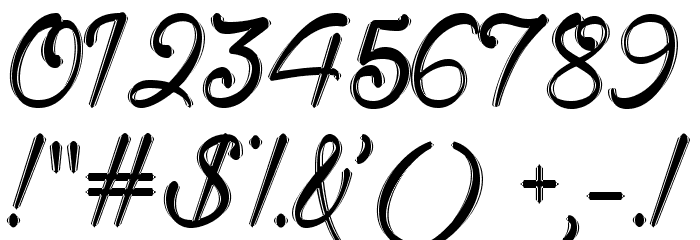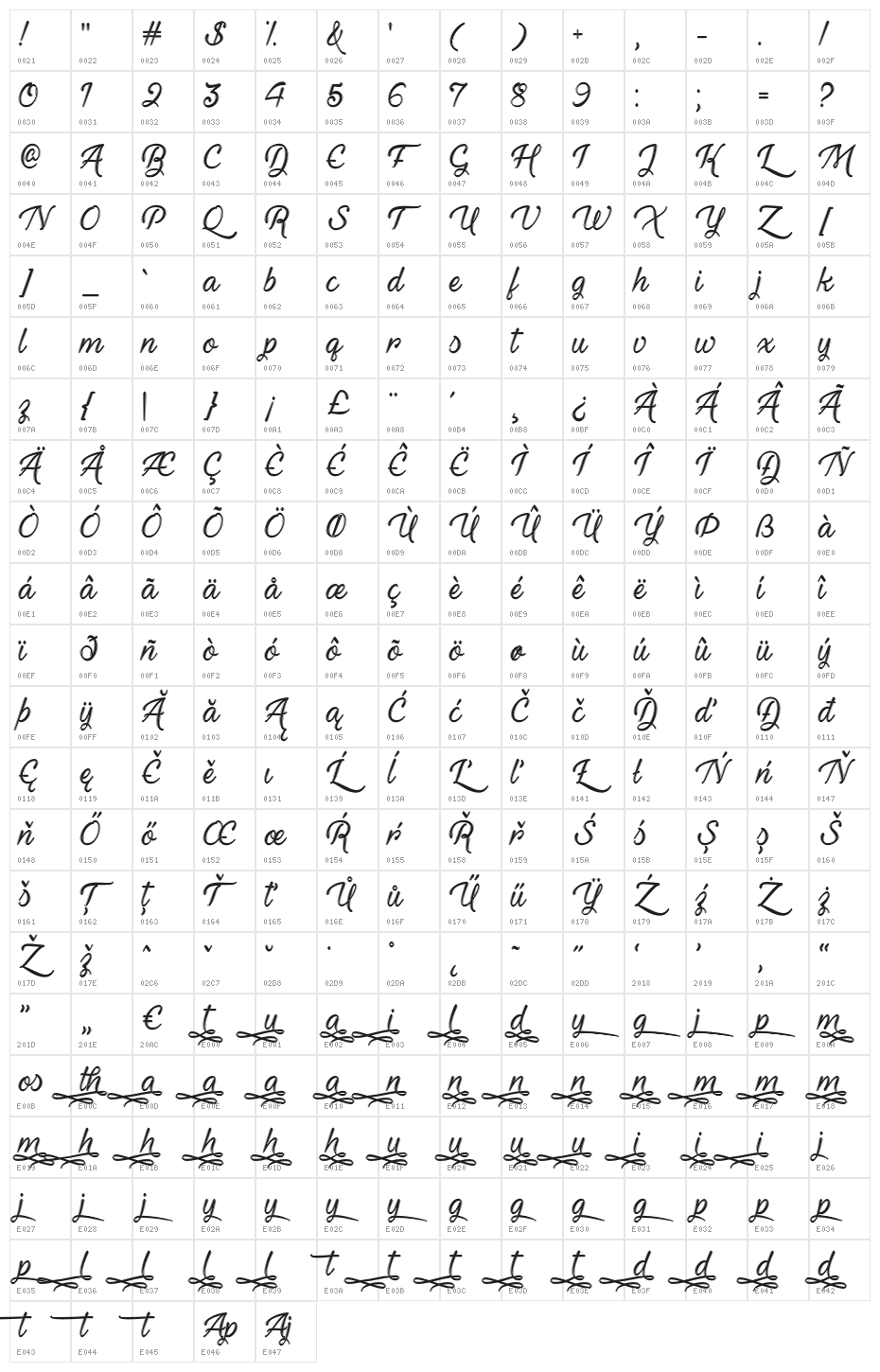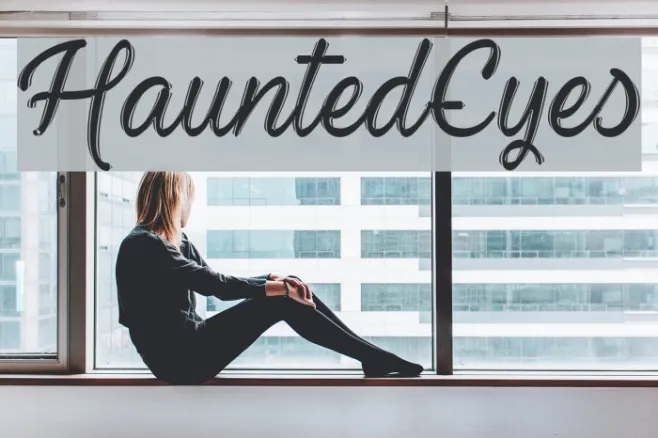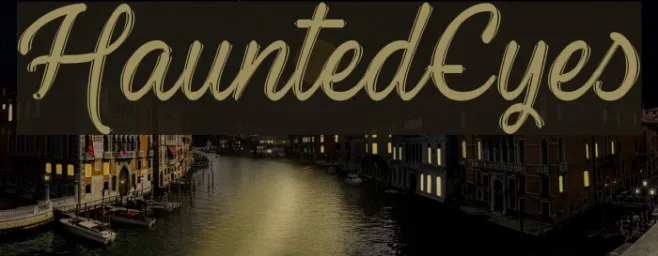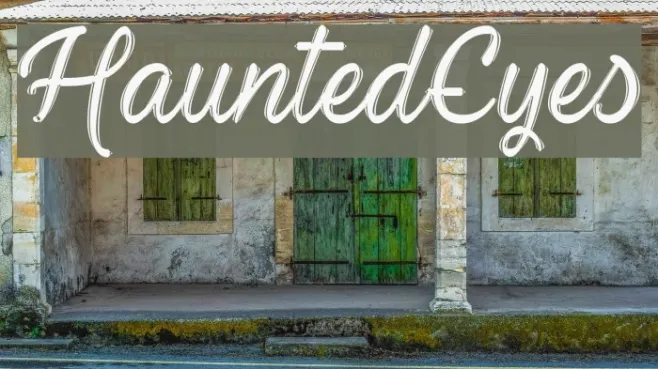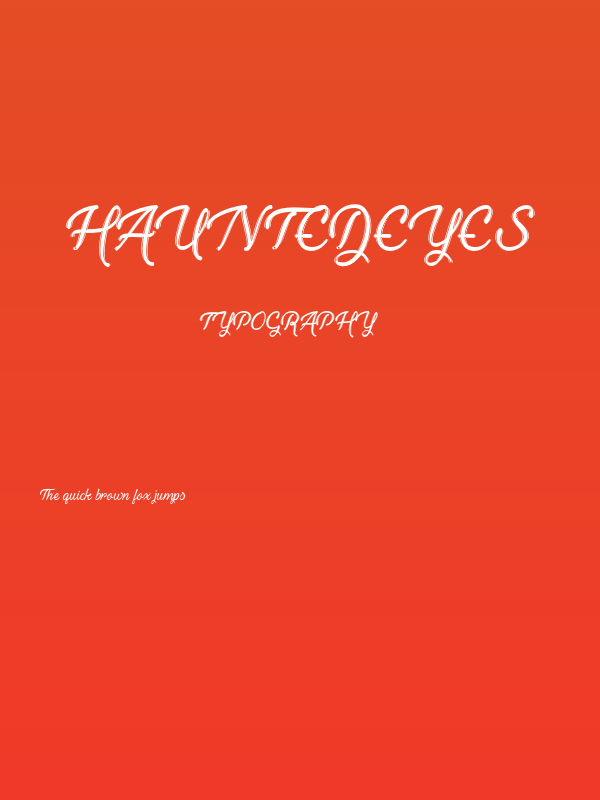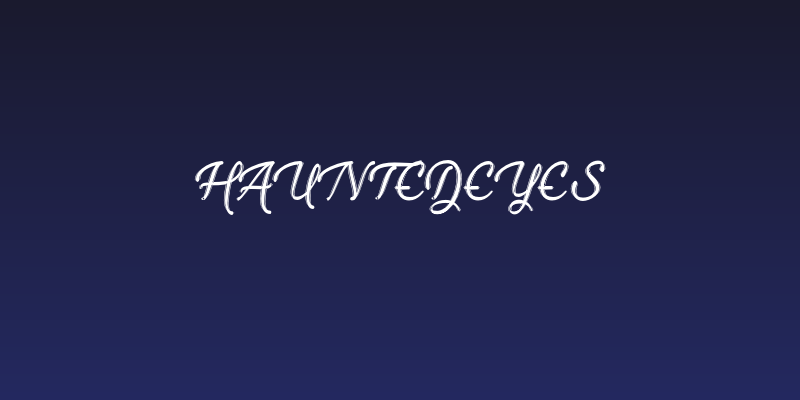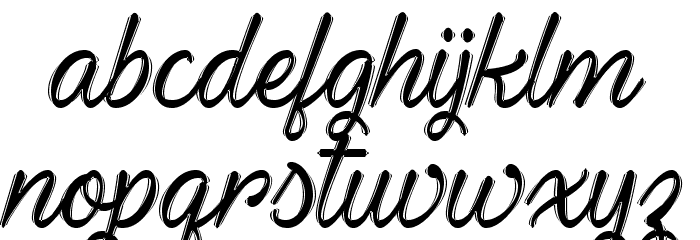
HauntedEyes Font
HauntedEyes Description
This font features a dynamic and flowing script style, characterized by its elegant and cursive letterforms. The uppercase letters exhibit a sense of grandeur with sweeping curves and flourishes, while the lowercase letters maintain a consistent fluidity. The numerals and special characters are designed to complement the overall aesthetic, adding a touch of sophistication. The strokes are moderately thick, providing a balanced contrast that enhances readability while maintaining an artistic flair. This font is ideal for projects that require a touch of elegance and creativity.